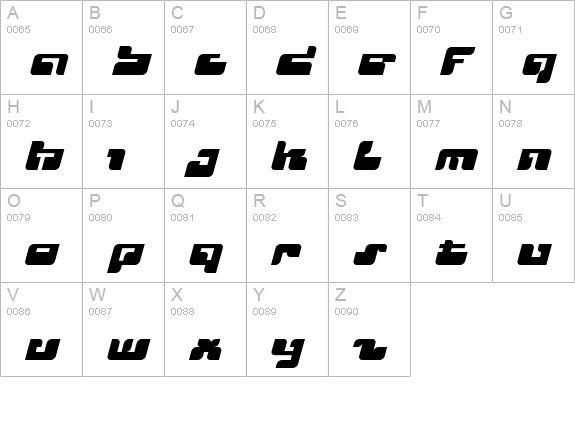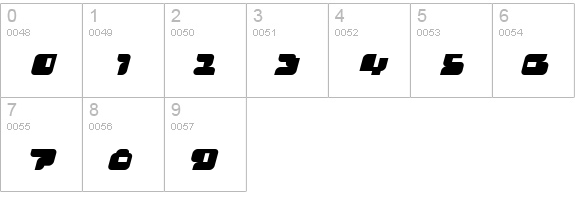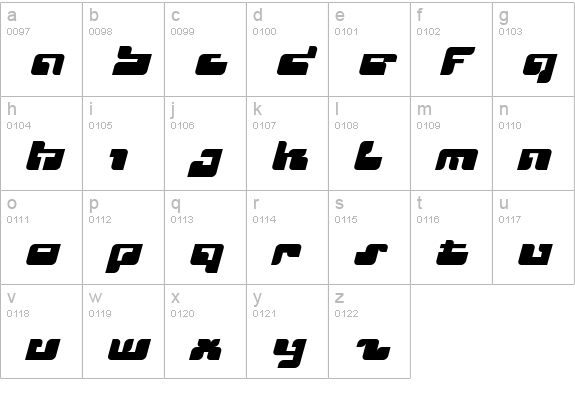
Cyclops Font Details
Introducing Cyclops font, a bold and eye-catching typeface that commands attention with its unique design. The Cyclops font features strong, geometric shapes and sharp angles that give it a modern and dynamic appearance. Perfect for headlines, titles, and branding projects, this font will make your text stand out and leave a lasting impression. The best part? Cyclops font is completely free to download at FontsMarket.com. Whether you're working on a personal project or a professional design, this font is a versatile choice that will add a touch of sophistication and style to your work. Don't miss out on the opportunity to enhance your designs with the striking Cyclops font, now available for free download.